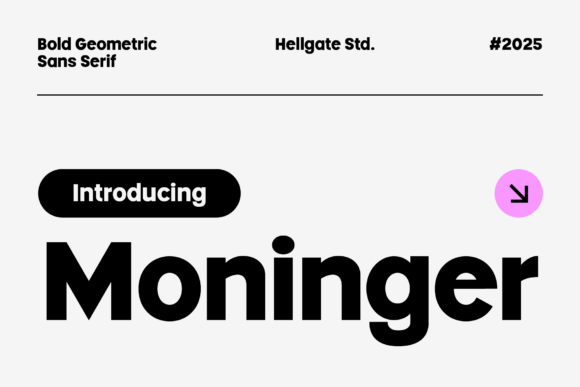
Moninger Geometric Sans Serif: Modern Elegance for Editorial Design and Digital Publishing
Moninger for Blog Headers and Magazine Covers: A Bold Editorial Statement
Moninger, a geometric sans serif font, brings a contemporary edge to blog headers and magazine covers. Its clean lines and balanced proportions create a strong visual presence that immediately captures reader attention. Whether you're designing a lifestyle blog or curating a digital magazine, Moninger offers a modern typographic solution that elevates your publication’s visual identity. As a sans serif font built for readability and style, Moninger works seamlessly across digital and print formats, ensuring your headlines remain crisp and compelling.
How Moninger Enhances Visual Hierarchy in Article Layouts
In editorial design, establishing a clear visual hierarchy is essential for guiding readers through content. Moninger’s structured geometry makes it ideal for section headings, lead-ins, and pull quotes. When used in article layouts, it helps distinguish between titles, subtitles, and body text without overwhelming the reader. Pairing Moninger with a classic serif font or a softer sans serif font creates contrast and balance, making your publication feel both professional and approachable.
Moninger for Ebook Titles and Chapter Openers: Setting the Tone
For ebook creators and digital publishers, Moninger serves as a powerful typographic anchor. Whether you're designing a recipe ebook, coaching workbook, or travel guide, Moninger’s elegant structure conveys sophistication and clarity. As a display font, it shines in chapter openers and title pages, where its geometric rhythm adds visual rhythm without sacrificing legibility. The font’s modern appeal makes it especially well-suited for lifestyle, wellness, and design-focused content, helping to establish a cohesive brand identity across all pages.
Using Moninger in Newsletter Graphics and Quote Layouts
Newsletters and quote graphics benefit greatly from Moninger’s clean, modern aesthetic. Its strong character makes it perfect for social media quote images, email headers, and motivational graphics that need to stand out in a crowded inbox or feed. When used in newsletter design, Moninger can serve as both a headline and accent font, allowing for creative layouts without compromising readability. Designers can take advantage of Moninger’s alternate characters and ligatures to add subtle personality to each layout, making the font a versatile tool for content creators.
Moninger for Printable Guides and Worksheets: Clarity Meets Style
Printable guides, planners, and worksheets require a font that is both functional and visually engaging. Moninger, as a sans serif font, delivers on both fronts. Its geometric structure ensures that text remains legible at various sizes, whether viewed on a screen or printed out. For creators of digital products—such as planners, lead magnets, or branded templates—Moninger offers a modern typographic solution that aligns with clean, contemporary design trends. The font’s versatility allows it to be used across multiple design platforms, from Canva to Adobe InDesign, making it a reliable choice for consistent branding.
Readability Considerations: Moninger on Screen and in Print
One of the key strengths of Moninger is its adaptability across different mediums. On screen, its open spacing and clear letterforms ensure that text remains easy to read, even on mobile layouts and PDF exports. In print, the font maintains its crispness and elegance, making it suitable for packaging design, editorial spreads, and branding materials. Content creators who publish across multiple formats will appreciate how Moninger retains its visual integrity whether used in a digital magazine, a printed workbook, or a web-based guide.
Moninger for Content Branding and Visual Consistency Across Platforms
Consistency is crucial for building a recognizable brand identity, and Moninger helps creators achieve that across blogs, newsletters, and digital products. As a modern sans serif font, it can be used for everything from logo design to social media graphics, ensuring that your visual language remains cohesive. Moninger’s clean aesthetic makes it especially effective for minimalist and high-end branding, where typography plays a central role in communicating professionalism and style.
Font Pairing Strategies with Moninger for Editorial Use
Moninger pairs exceptionally well with other fonts to create layered, engaging layouts. For editorial design, consider pairing it with a readable serif font for body copy or a clean sans serif font for captions and navigation elements. This combination allows Moninger to shine as a display font while maintaining readability throughout the publication. Designers can also experiment with contrasting weights—using a bold Moninger headline with a light serif body text—to create dynamic visual interest without sacrificing clarity.